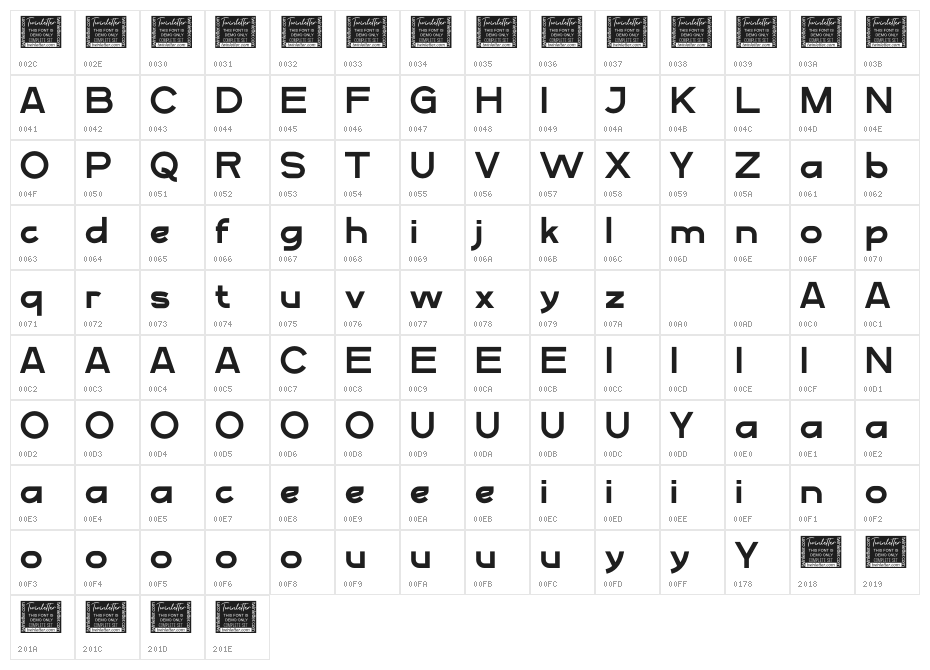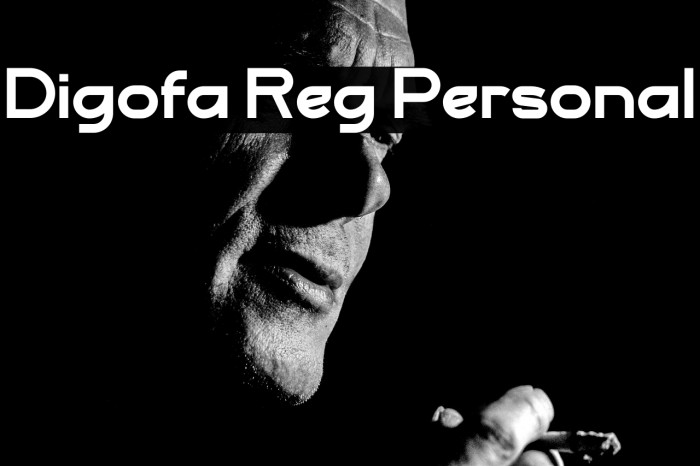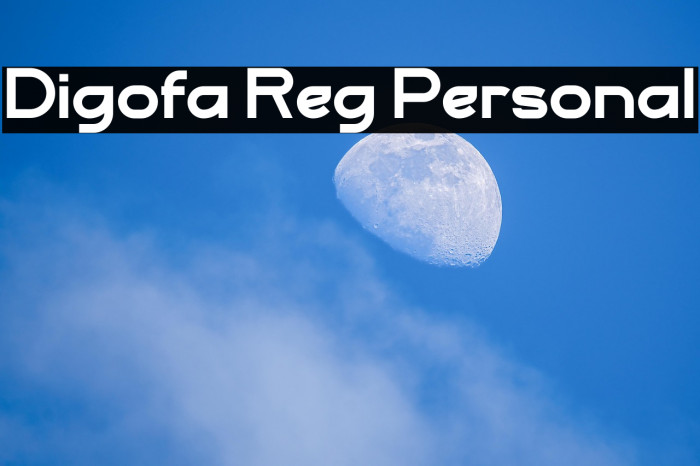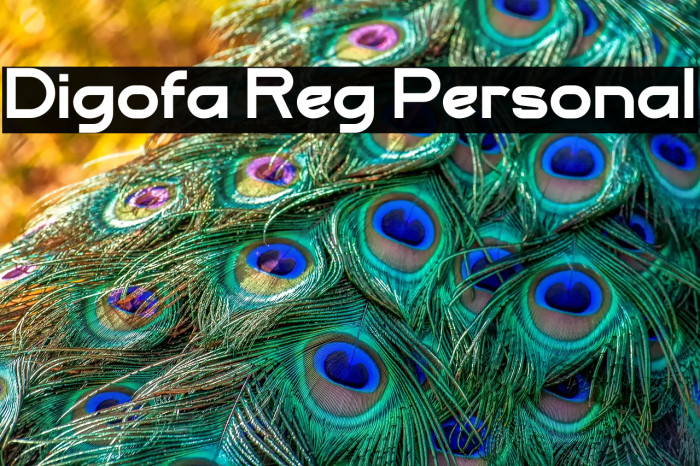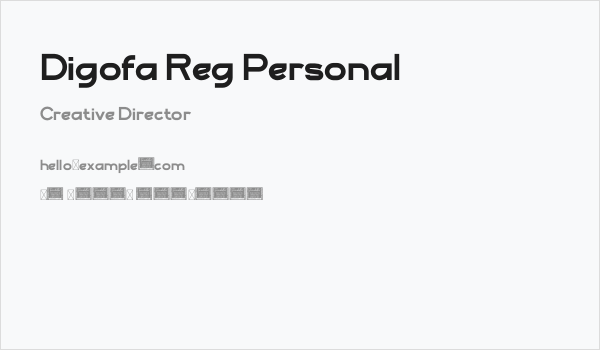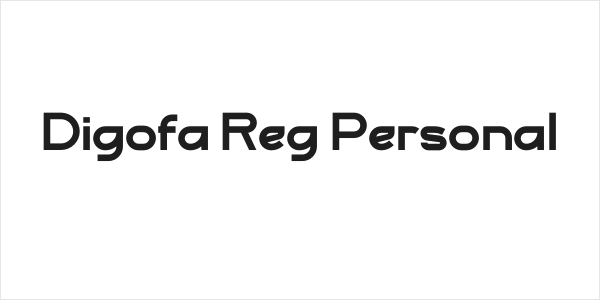
Digofa Reg Personal Font
Digofa Reg Personal Description
This font features a modern and clean design with a geometric structure. The uppercase and lowercase letters are bold and have a consistent stroke width, providing a strong visual impact. The characters are well-balanced, with a slight curvature that adds a touch of softness to the overall appearance. The numerals and special characters follow the same design principles, ensuring uniformity across all elements. The font's simplicity and clarity make it highly legible, suitable for various design applications.
| Proposed Projects | Ideal for branding, advertising, headlines, and digital media projects where a strong, modern aesthetic is desired. |